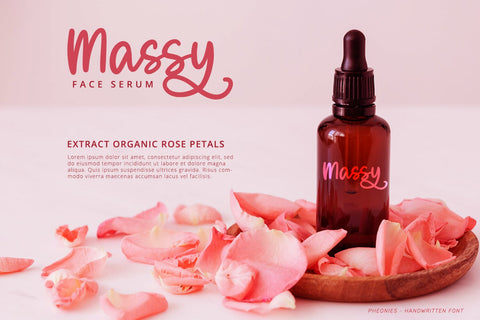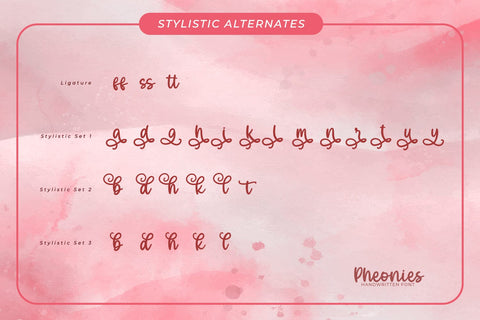
Pheonies-Handwritten Font
Pheonies is a handwritten font with a natural and unique design will make your project more beautiful. The font is suitable for your branding project, printing, logos dan wedding.
- Beautiful Ligatures